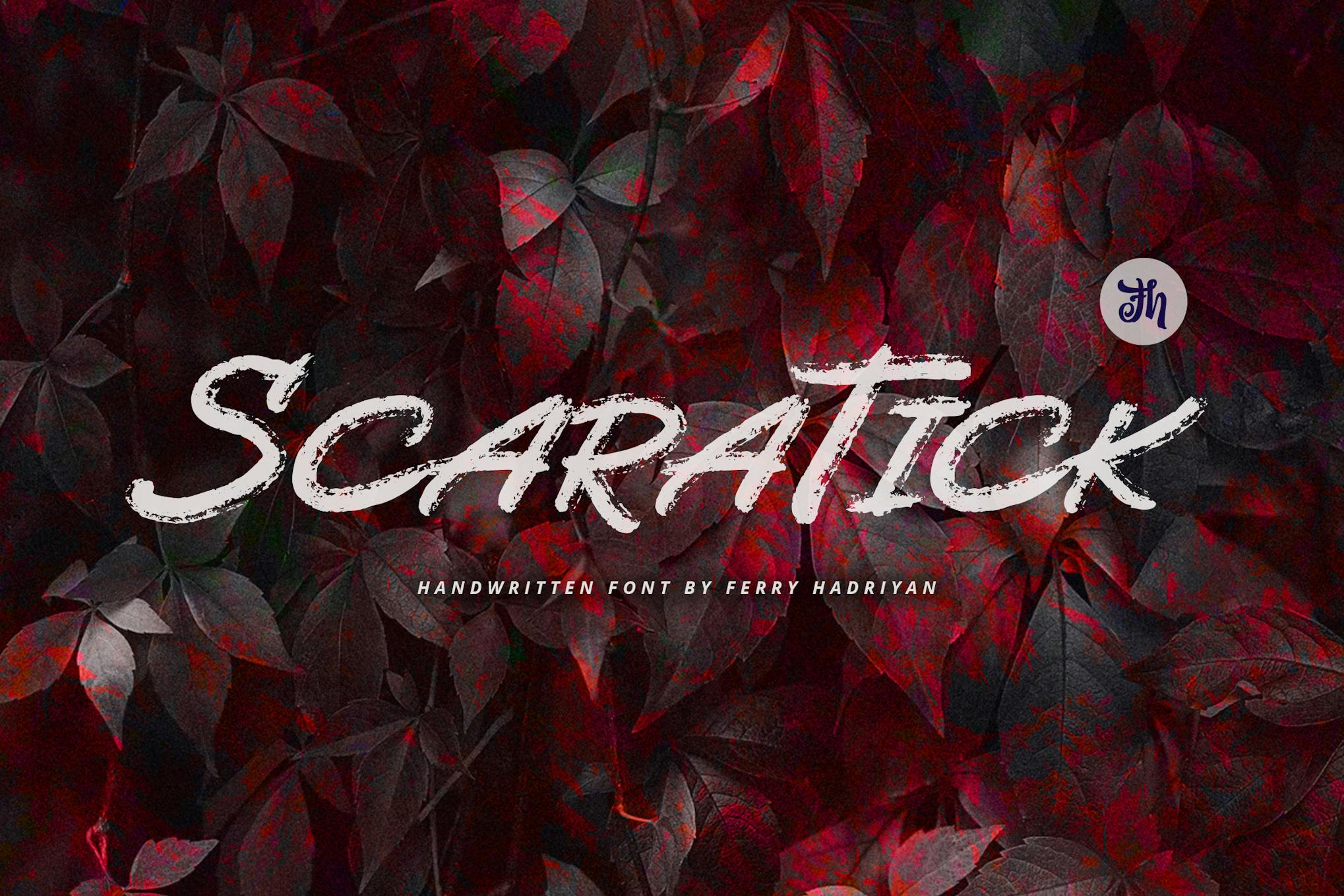
Scaratick - Handwritten Font
Scaratick - Handwritten Font haunts horror movie credits, psychological thriller book covers, mysterious escape room signage, eerie Halloween event promotions, dark fantasy novel titles, sinister podcast branding, supernatural game interfaces, creepy art installations, macabre theater posters, spooky children's books, haunted attraction materials, and spine-chilling marketing campaigns where scratchy handwritten terror and unsettling authenticity create genuinely frightening visual experiences.
This spine-tingling typeface generates excitement through its masterful evocation of scratched messages and disturbed handwriting that creates typography suggesting psychological unrest and supernatural interference. Scaratick - Handwritten Font captures the essence of horror with its deliberately unsettling letterforms that appear scratched into surfaces by desperate fingers or otherworldly forces. The font's chilling design approach incorporates elements that suggest desperation, madness, and the supernatural, featuring irregular scratches, trembling strokes, and disturbing inconsistencies that create immediate psychological discomfort. Its distinctive character reflects the fear, desperation, and otherworldly presence that define authentic horror storytelling and supernatural entertainment.
The Scaratick - Handwritten Font family includes multiple terrifying variations such as Regular, Bold, Light, Scratched, and Demonic versions, each maintaining the font's characteristic horror authenticity while offering different levels of supernatural terror. The collection features scratch mark textures, horror-inspired distortions, and supernatural styling that enhance its frightening credibility. Additional elements include occult symbols, horror ornaments, supernatural decorative borders, and demonic flourishes that reinforce the font's connection to genuine supernatural horror and psychological terror.
Whether you're designing horror movie promotions, creating supernatural entertainment branding, developing psychological thriller materials, or producing genuinely frightening digital content, Scaratick - Handwritten Font delivers unmatched horror authenticity. Its ability to convey terror, supernatural presence, and psychological disturbance makes it invaluable for horror creators seeking typography that genuinely frightens and disturbs audiences. The font's scratched presence ensures your designs will communicate the authentic fear and supernatural terror that define exceptional horror communications and spine-chilling entertainment experiences.